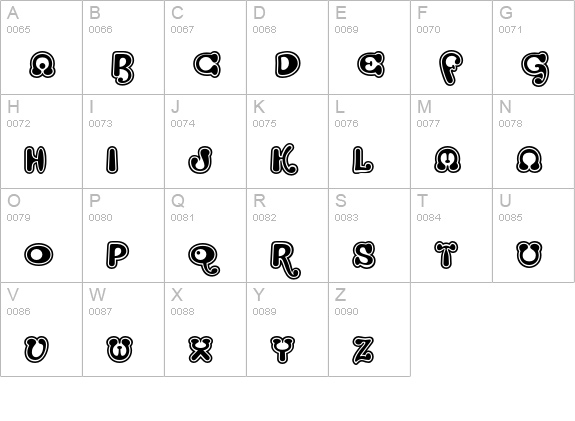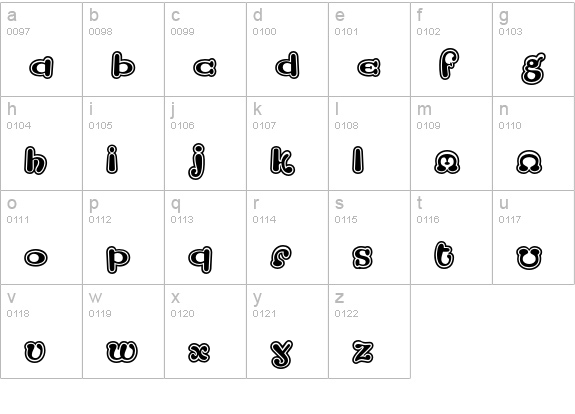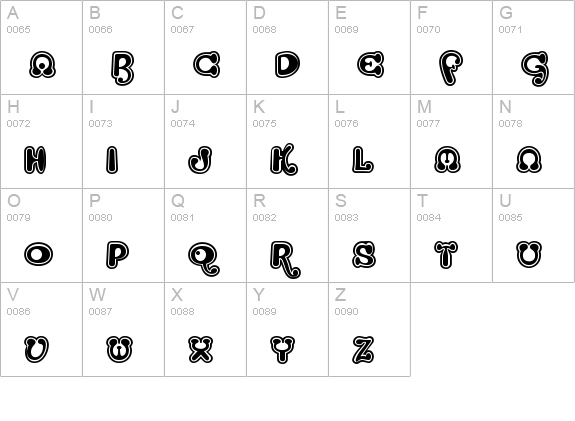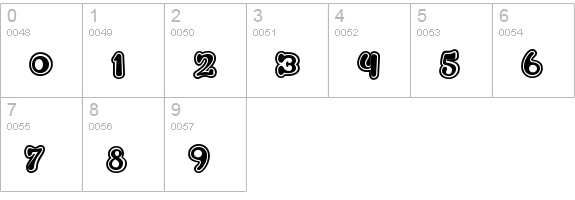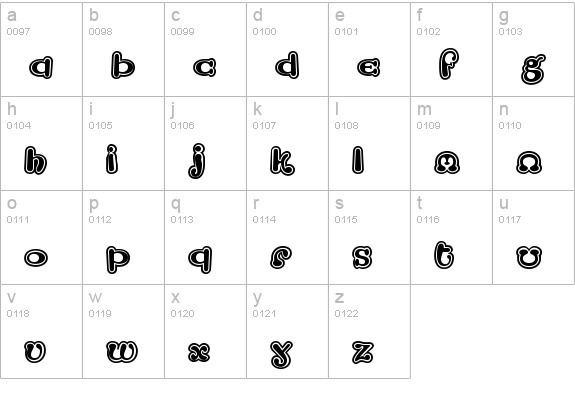
Strumpf Std Contour font is a modern and sophisticated typeface that exudes elegance and style. Its unique contours and sleek design make it perfect for a wide range of creative projects, from branding to editorial design. This font is sure to make your text stand out and grab attention. The best part? Strumpf Std Contour font is available for free download at FontsMarket.com. You can easily access this beautiful font and enhance your designs without any cost. Don't miss out on this amazing opportunity to elevate your projects with the stunning Strumpf Std Contour font. Download it today and let your creativity shine!